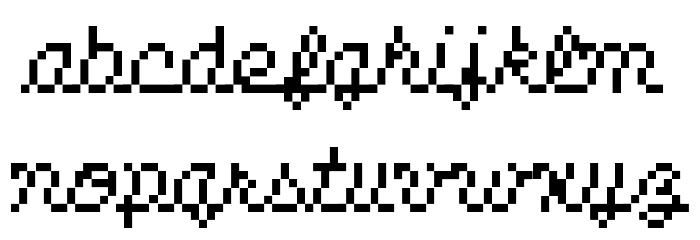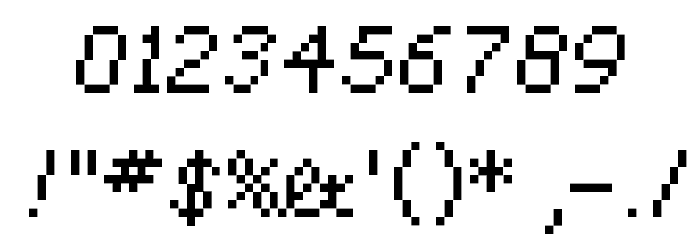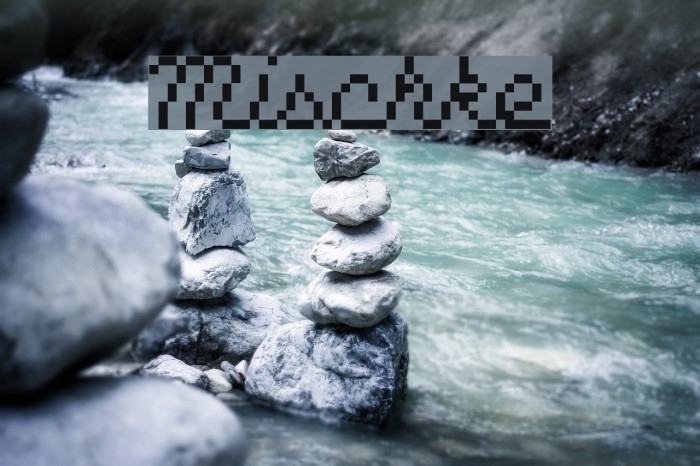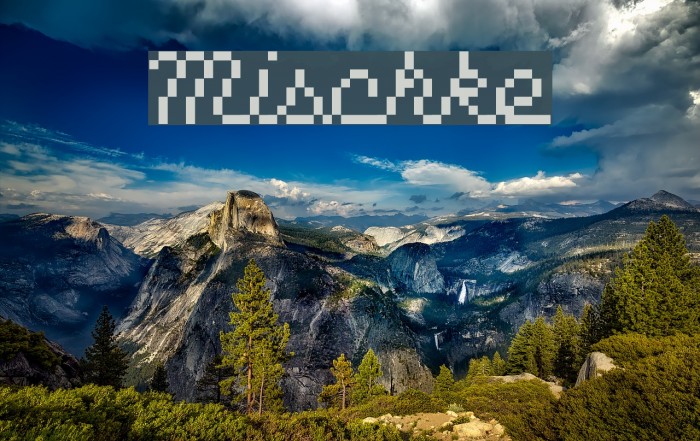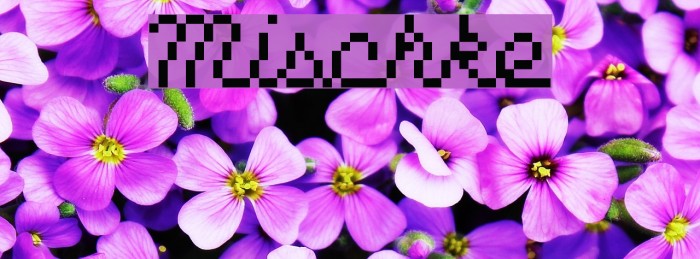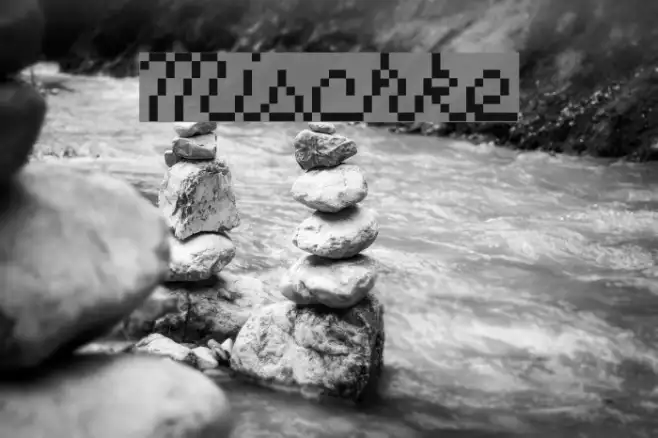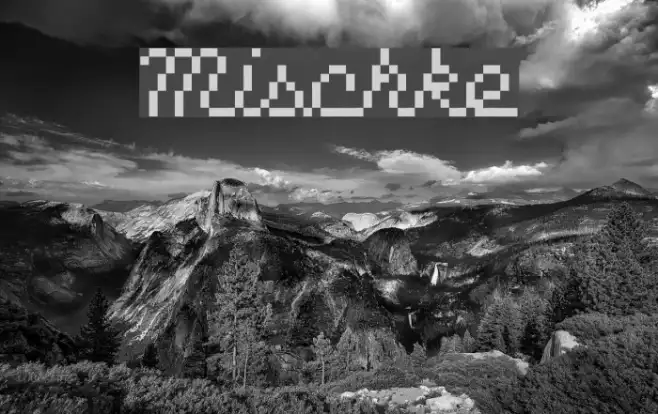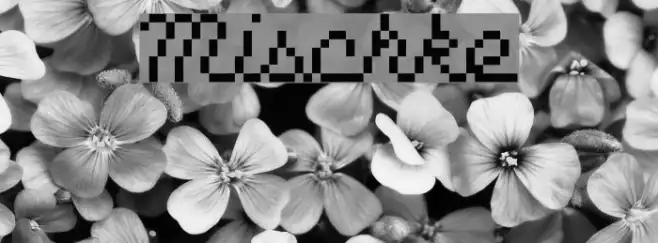
Mischke Font
This font features a pixelated, retro style reminiscent of early digital displays and video games. Each character is composed of small, square blocks, creating a distinct, grid-like appearance. The uppercase and lowercase letters maintain a consistent height, emphasizing uniformity and simplicity. Numbers and special characters follow the same pixelated design, ensuring a cohesive look across all glyphs. The font's nostalgic charm makes it ideal for projects that aim to evoke a sense of the past or pay homage to the early days of digital technology.
A pixelated, retro-style font with a nostalgic digital display aesthetic.
- Proposed Projects: Ideal for retro-themed designs, video game graphics, digital art projects, and nostalgic branding.
- Overall Style: Vintage
- Use Case: Logos, Headlines, Digital Art